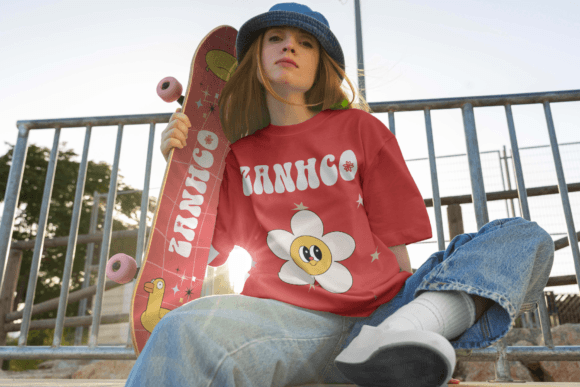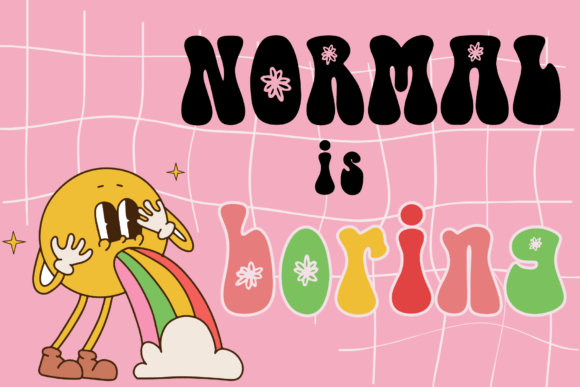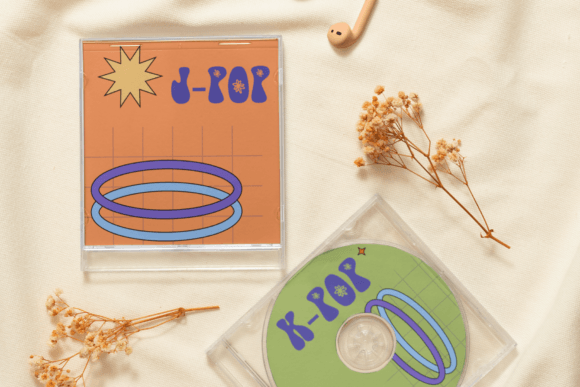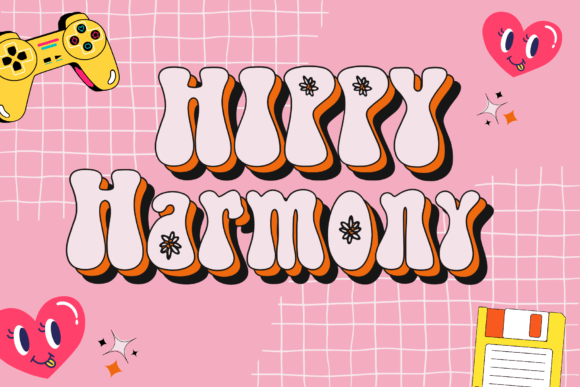
Introduction to Hippy Harmony Font
Hippy Harmony Font is a modern trendy retro and hippie-style font that is not only on-trend and eye-catching but also incredibly versatile in every project.
Whether you’re working on product branding or content use, creating a display headline, or designing packaging for your latest project, Hippy Harmony font will surely bring an impressive and super cool feel to your piece of work effortlessly .